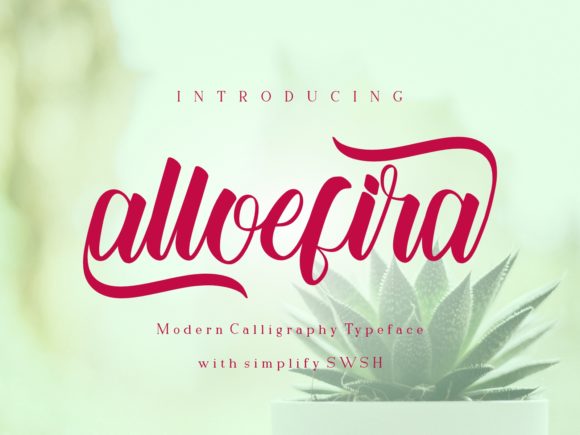
Introducing Alloefira Font, a captivating handwritten font that will ignite your creativity and transform your designs. Its varying baseline, smooth lines, and gorgeous glyphs create an authentic and enchanting feel that will leave a lasting impression.
With Alloefira, you'll have access to a diverse range of stunning alternates, allowing you to add a touch of uniqueness and personality to your projects. Whether you're designing wedding invitations, beautiful stationary art, eye-catching social media posts, or cute greeting cards, Alloefira will elevate your work to new heights.
Immerse yourself in the world of Alloefira and let its charm capture your heart. Its delicate strokes and elegant curves dance across the page, creating a visual masterpiece that is sure to captivate your audience. From heartfelt messages to whimsical illustrations, Alloefira will add a touch of magic to all your creations.
With its versatility and captivating beauty, Alloefira is the perfect choice for any designer looking to make a statement. Its unique style and endless possibilities will unlock your creative potential and inspire you to craft designs that shine.